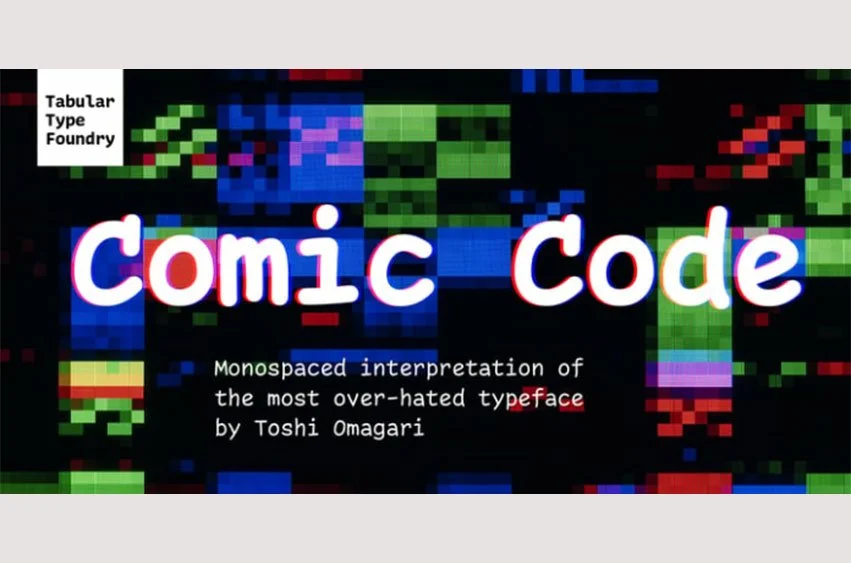
Comic Code Font is a monospaced adaptation of the most infamous yet most popular casual font. Designed specifically for programming, which is a corner of typography that involves intensive typing that feels more akin to handwriting than typesetting, this typeface took inspirations from friendly characteristics and low-resolution legibility of Comic Sans. It is an unapologetic admittance of Comic Sans’s positives, and a literal manifestation of “code like nobody’s watching”. Comic Code only takes inspiration from Comic Sans and was drawn entirely from scratch, in case you are wondering. NOTE: Ligatures are off by default (available as OpenType dlig feature), and you may want Comic Code Ligatures instead.